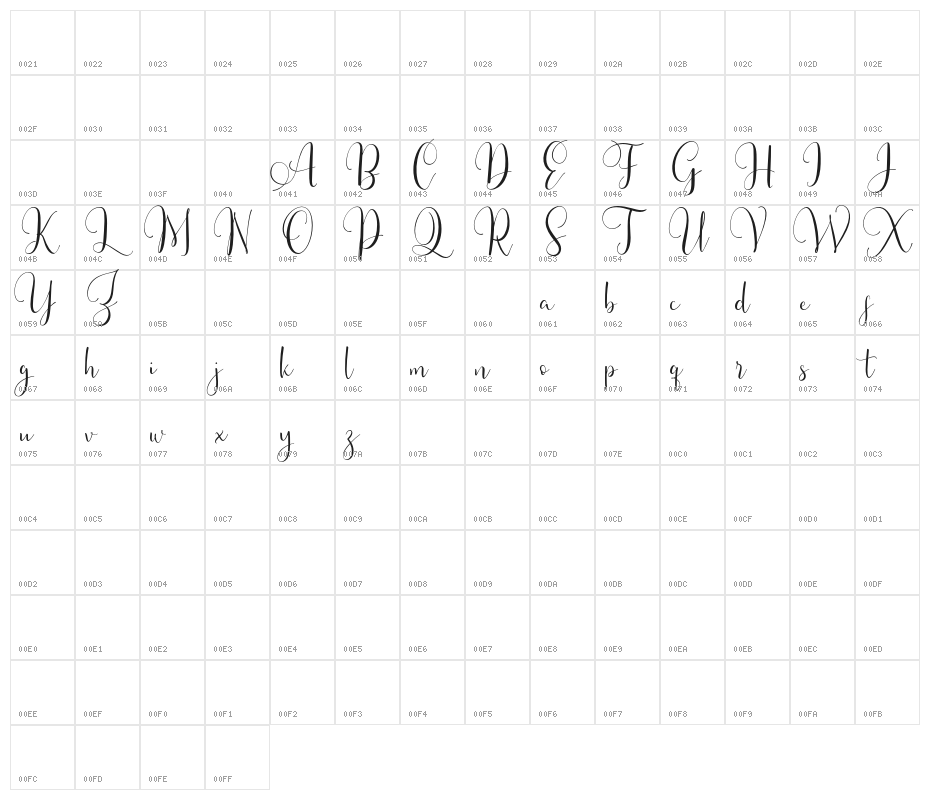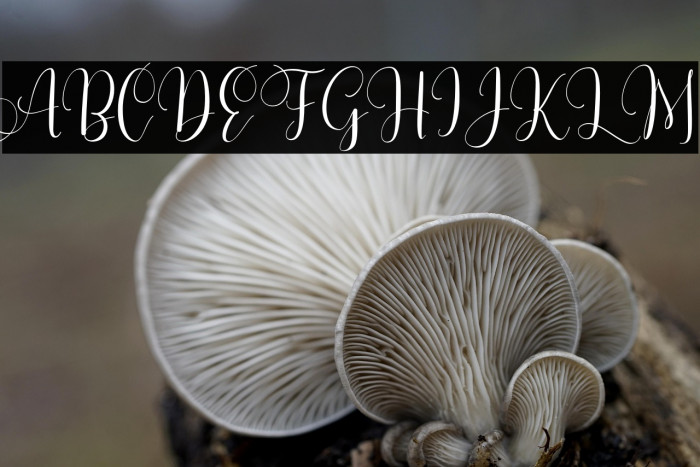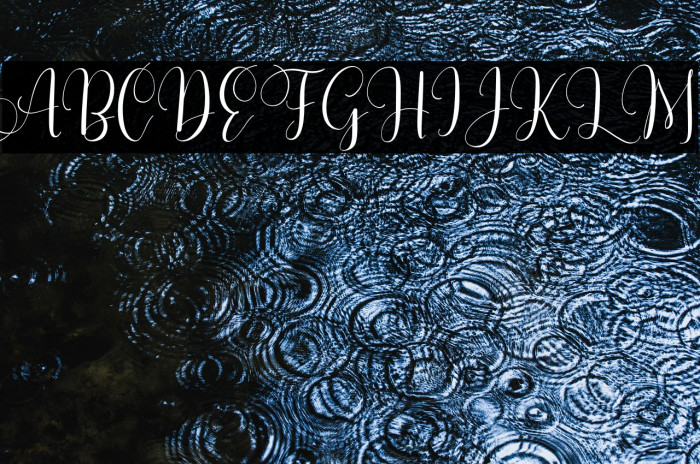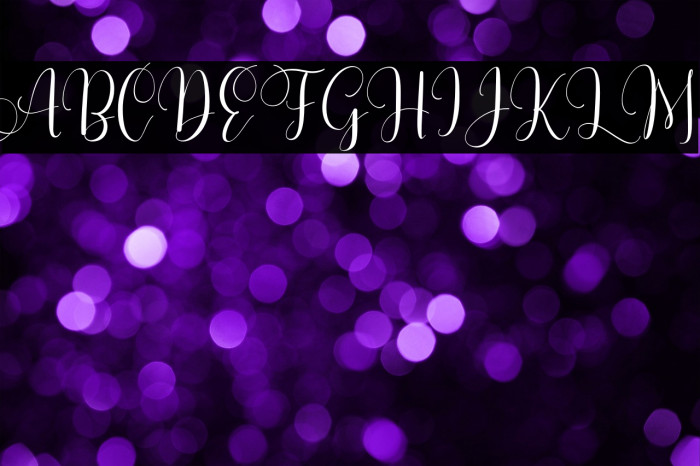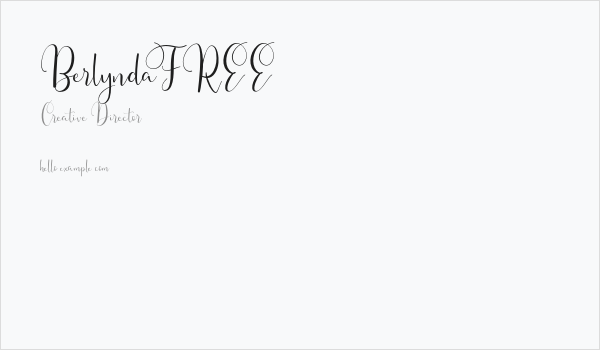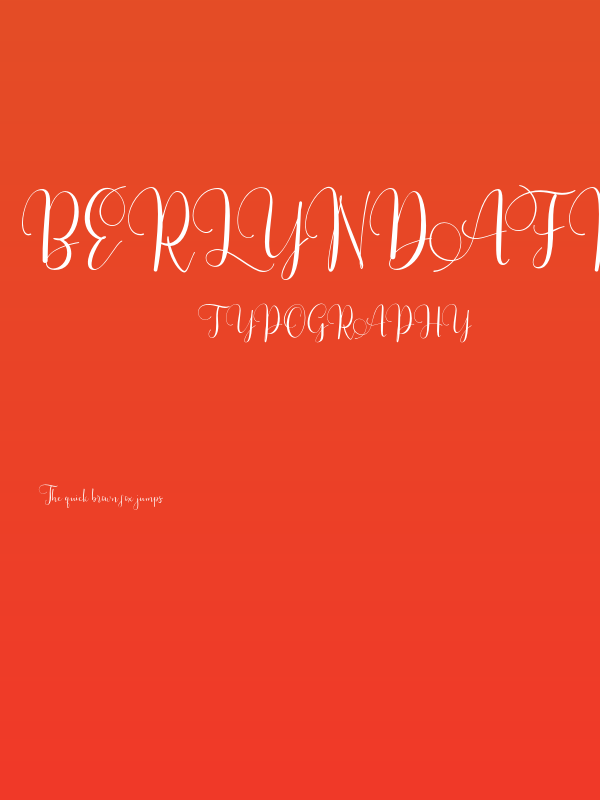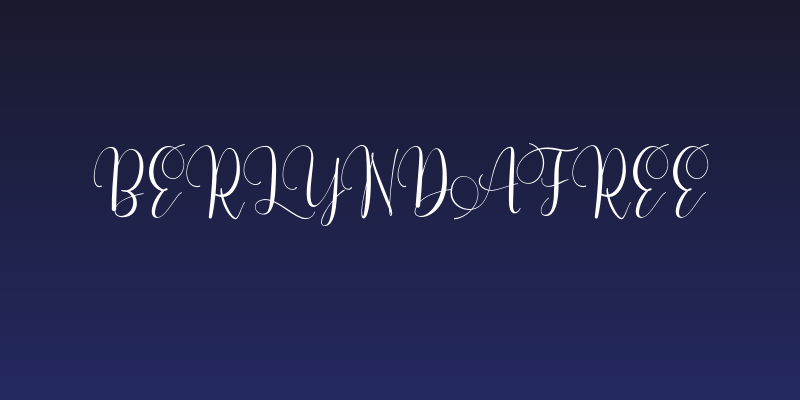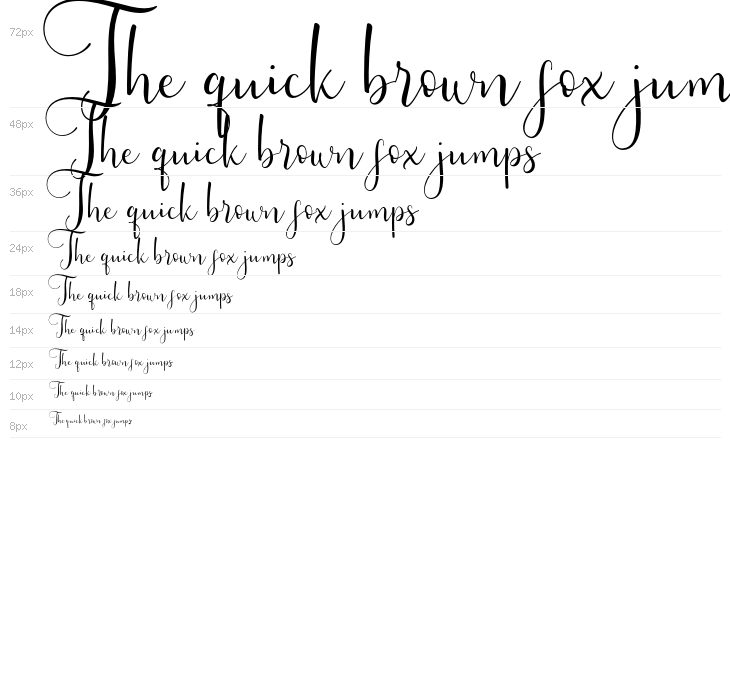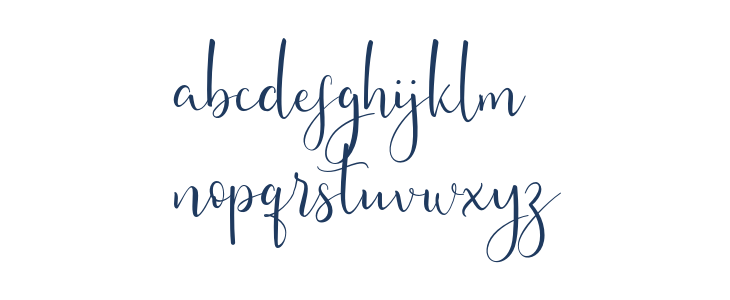
BerlyndaFREE Font
BerlyndaFREE Description
This elegant script font features a flowing, cursive style with intricate loops and swashes that give it a sophisticated and artistic appearance. The uppercase letters are characterized by their tall, graceful forms and decorative flourishes, while the lowercase letters maintain a consistent, smooth flow that enhances readability. The font's overall design exudes a sense of elegance and charm, making it ideal for projects that require a touch of class and creativity. The numerals and special characters are designed to complement the letters, maintaining the same stylish and cohesive look throughout.
| Overall Style | Elegant, Artistic |
| Use Case | Logos, Invitations, Decorative Text |
| Proposed Projects | Ideal for wedding invitations, greeting cards, branding, and elegant logo designs. |